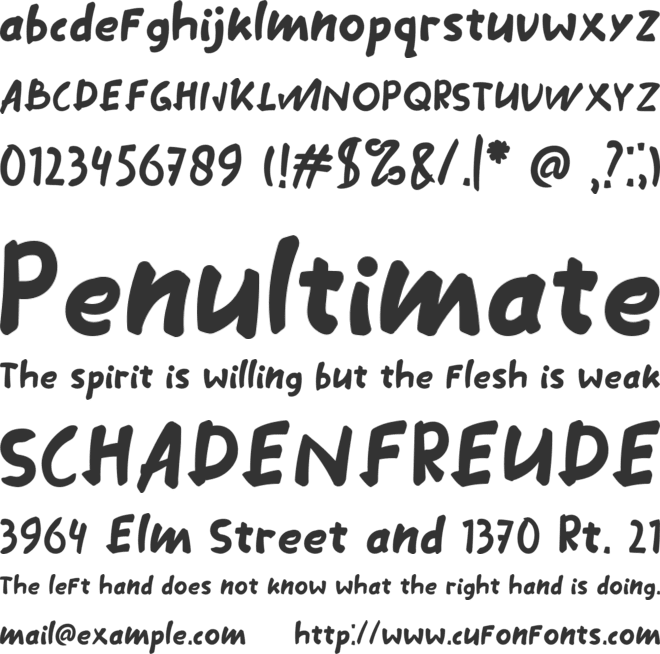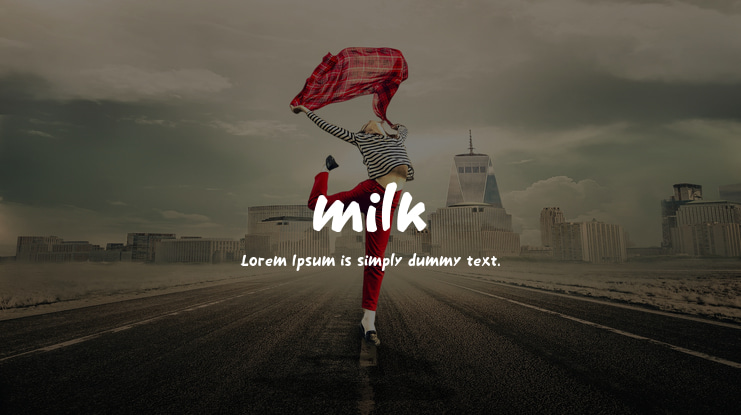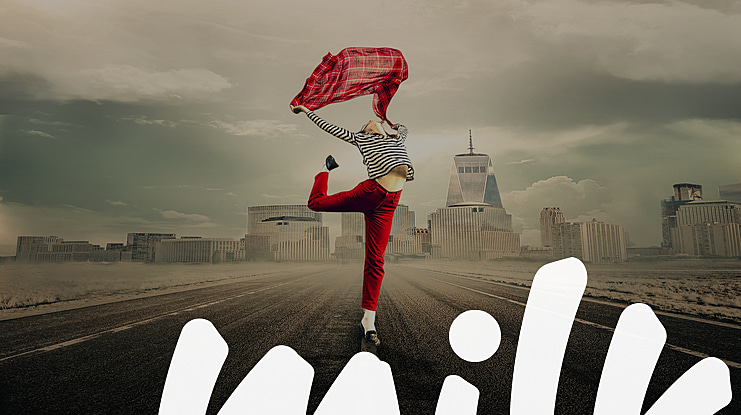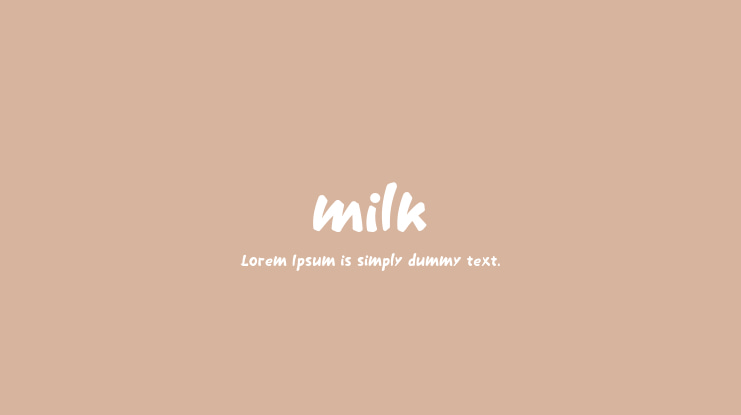
milk Font
Milk Display Font
It’s a bouncy and quirky display font. It will add a fresh and contemporary touch to your designs. Add this unique display font to each of your creative ideas and notice how it makes them stand out!